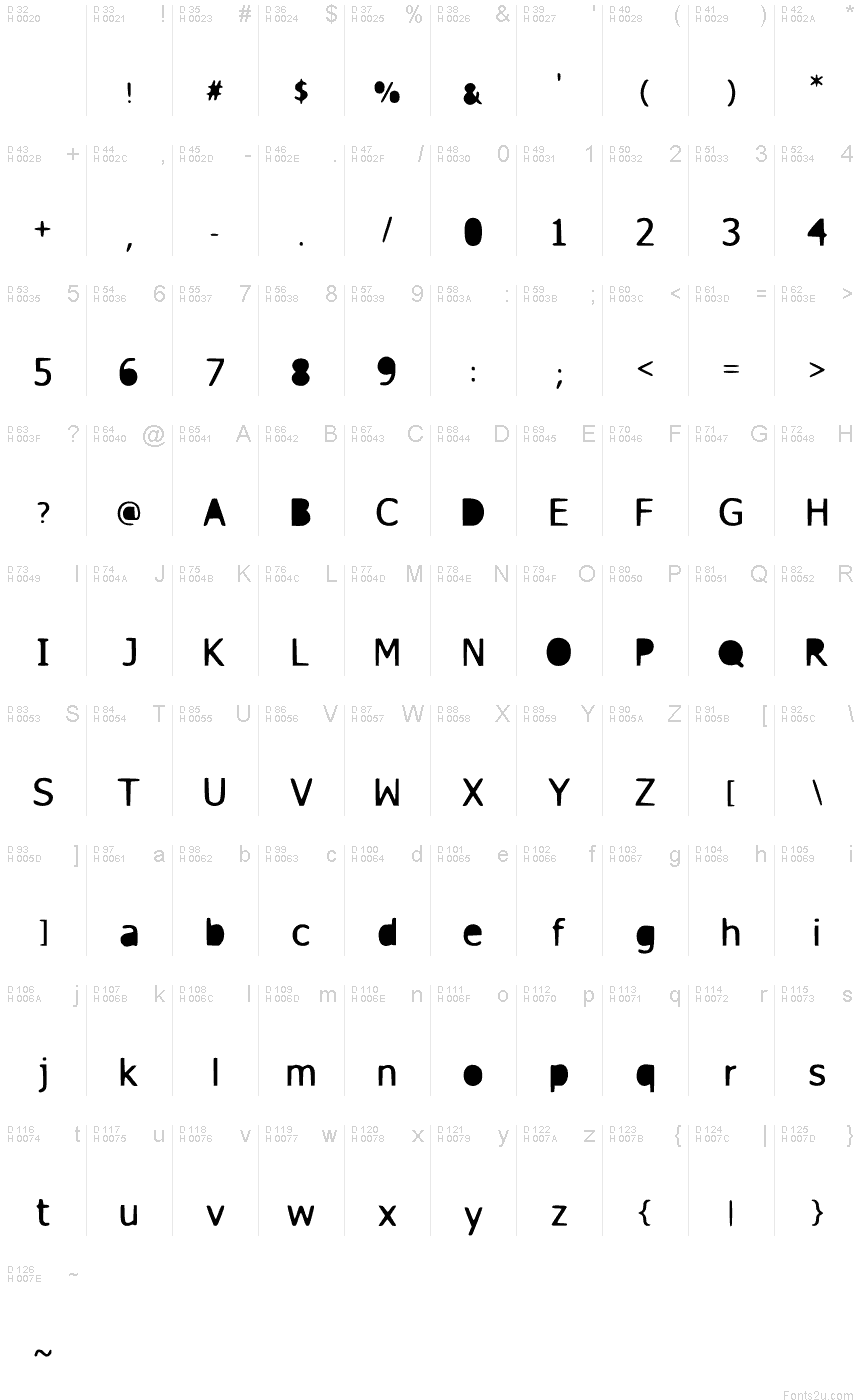
Fillerz by STM is a free decorative display font with lopsided, hand-shaped forms and dramatically shifting widths. Broad rounded letters sit beside pinched upright strokes, creating an uneven silhouette that feels deliberately improvised. Several shapes have soft dents and curious inward cuts.
Puffy cartoon illustration and food imagery echo the lettering's swollen curves, making it apt for snack packaging and casual restaurant branding. Its playful irregularity also suits children's publishing and comedy event posters. In a brand identity, the changing proportions can turn the name itself into a loose, memorable emblem.